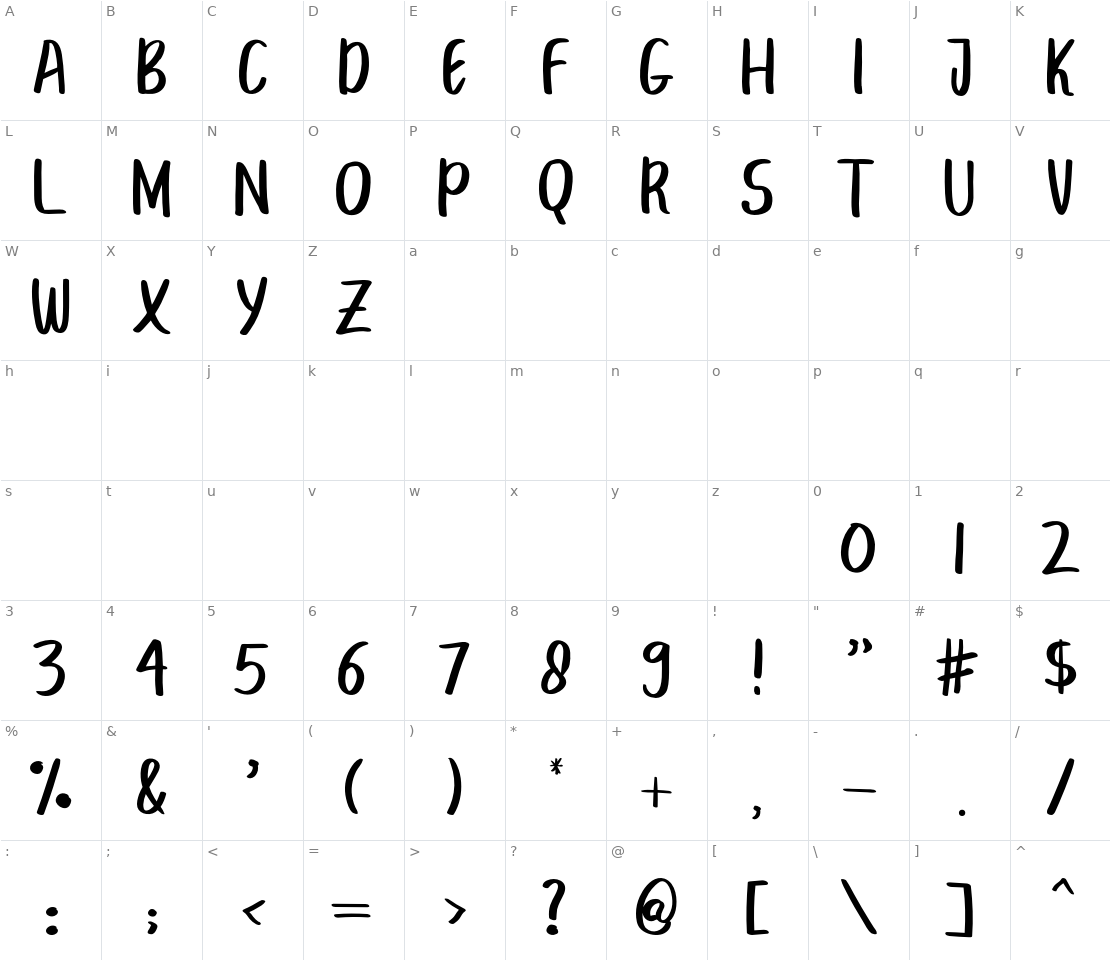
Break Beach
Break Beach is a bold, marker-style handwritten face from Eldertype Studio with thick, breezy strokes that carry a laid-back summer energy. The letterforms feel spontaneous and playful, like someone scrawling on a surfboard or beach bar chalkboard. Best for headlines, packaging, and branding where you want casual warmth with enough weight to hold attention.